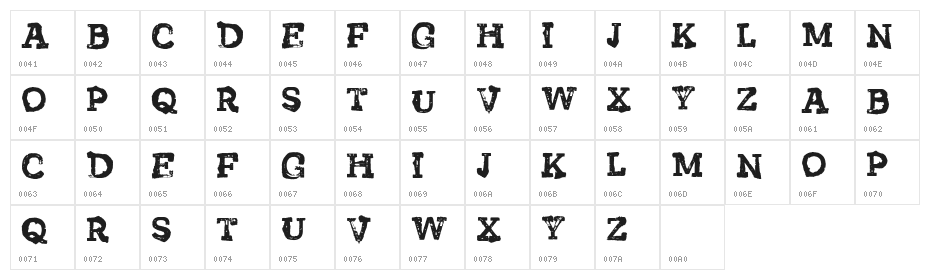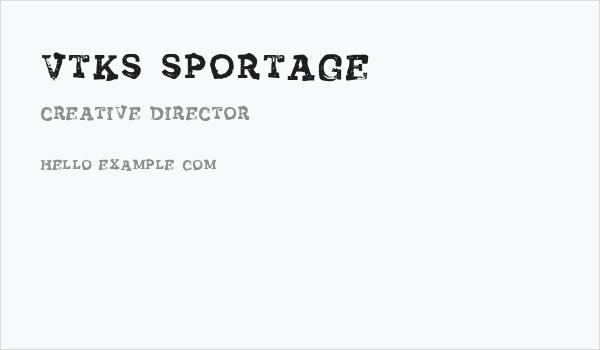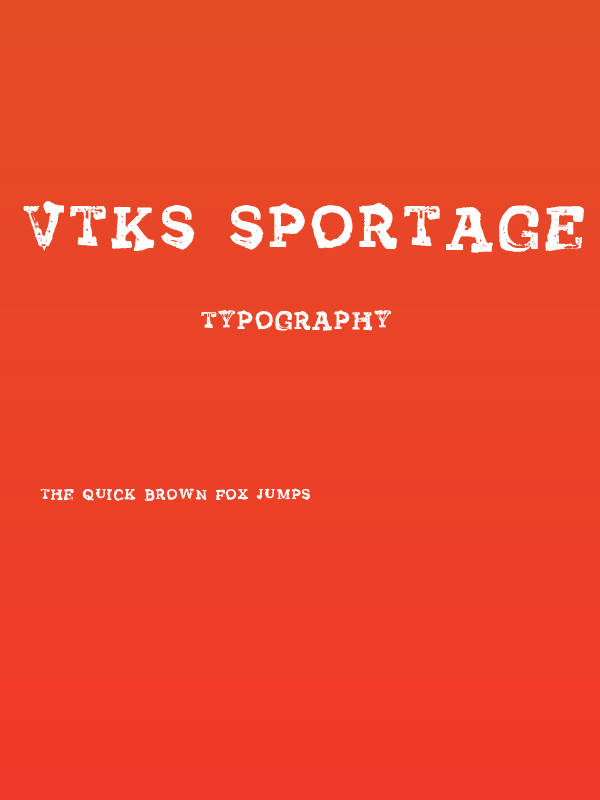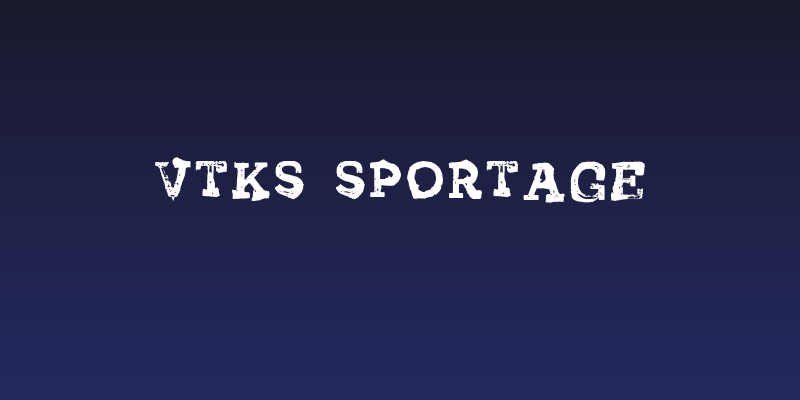
Vtks Sportage Font
Vtks Sportage Description
This font exhibits a rugged, distressed style with a bold and impactful appearance. Each character appears as if it has been weathered or eroded, giving it a unique, textured look. The uppercase letters are prominent and maintain a consistent height, while the lowercase letters follow a similar pattern, ensuring readability despite the distressed effect. The numbers and special characters also share this worn aesthetic, making the font cohesive across all its elements. This style is particularly effective for creating a vintage or grunge look, adding character and depth to any design.
| Proposed Projects | Ideal for posters, album covers, branding for edgy or vintage-themed products, and any design requiring a bold, weathered look. |